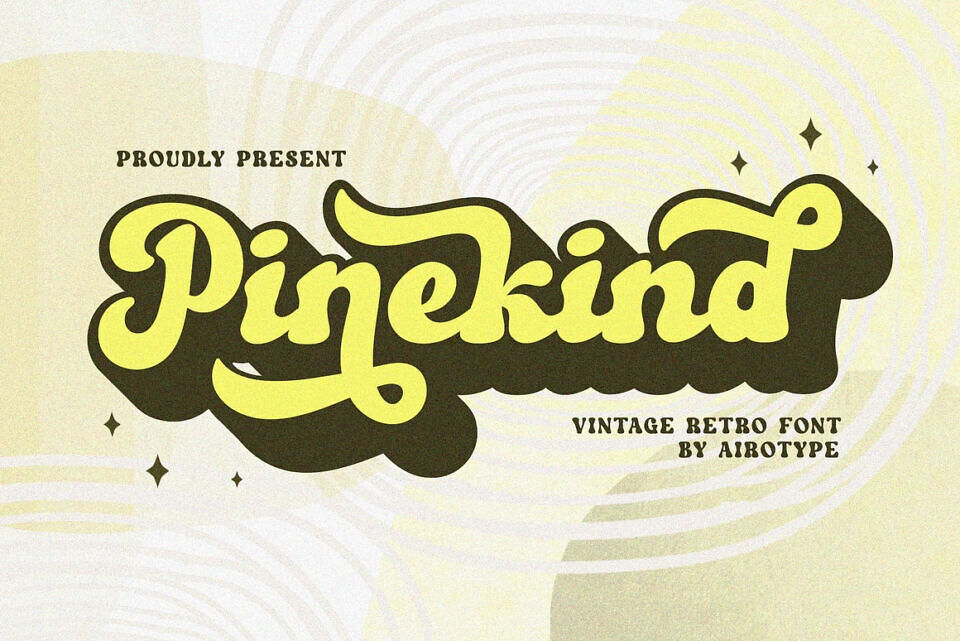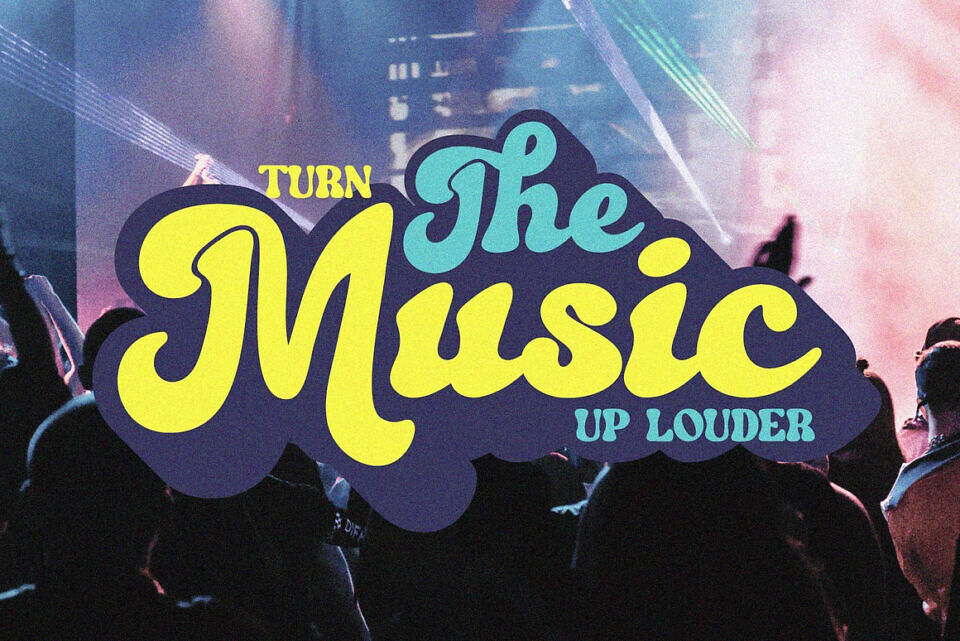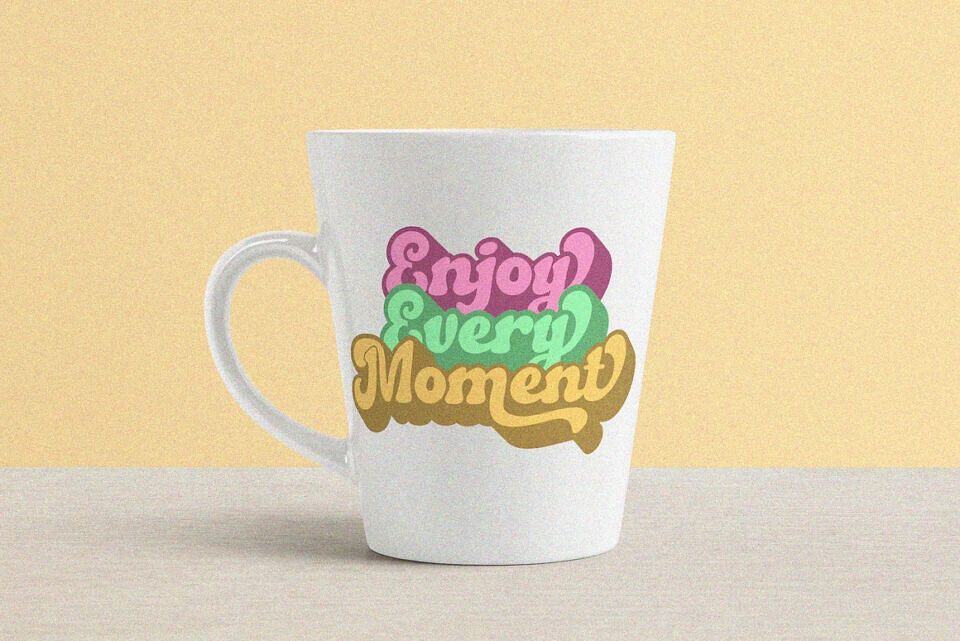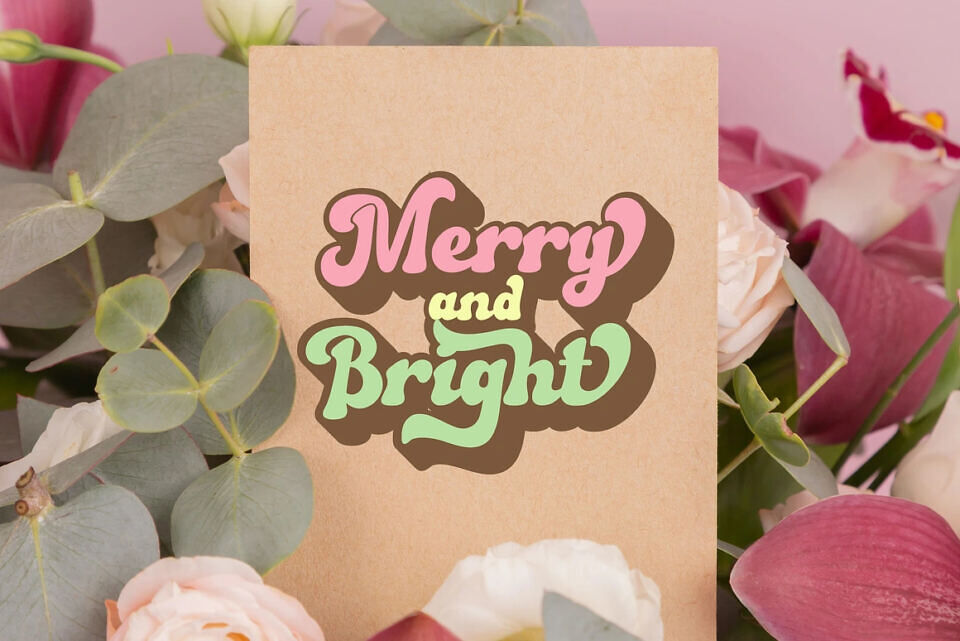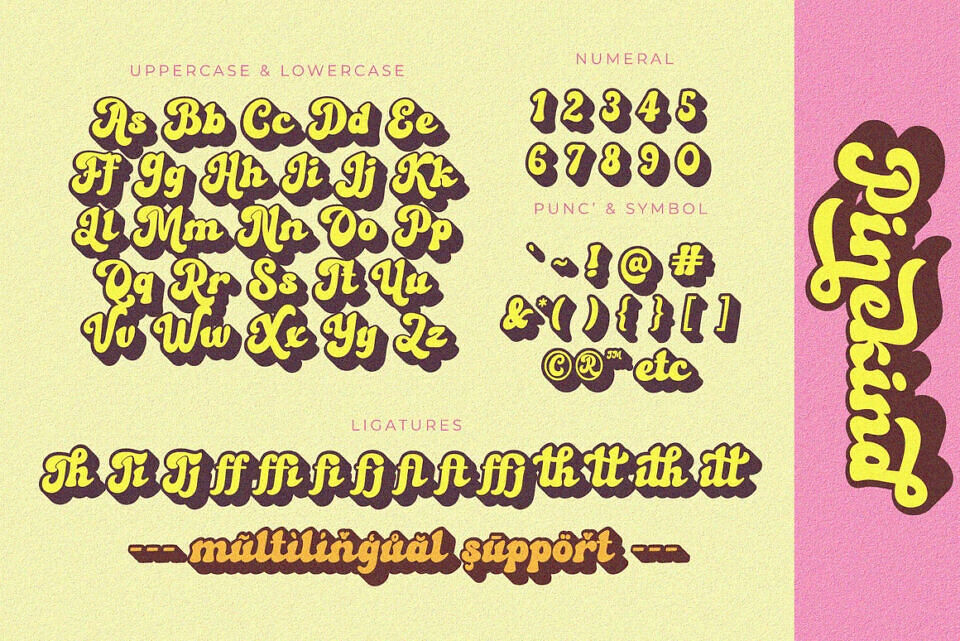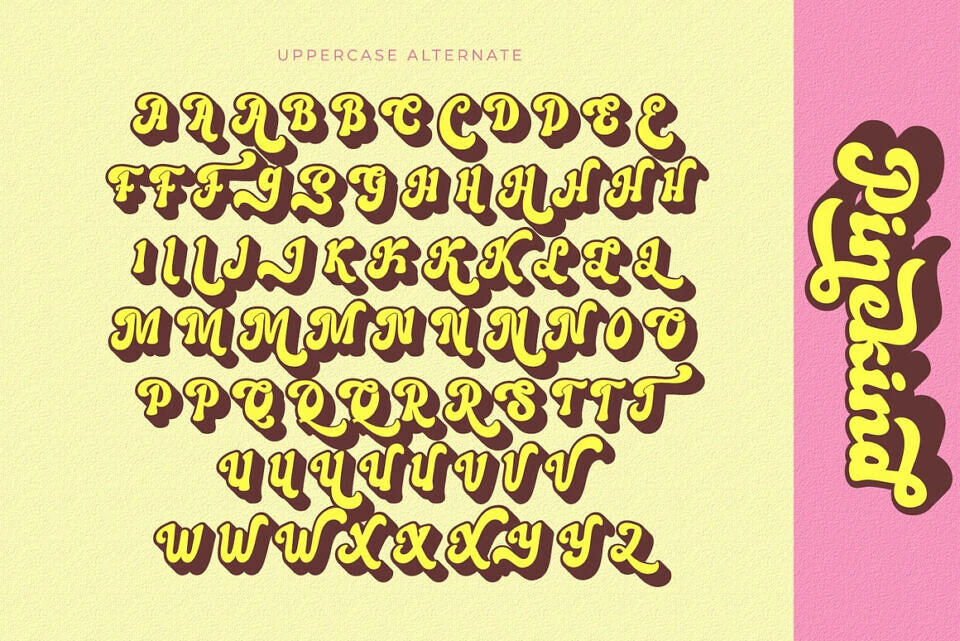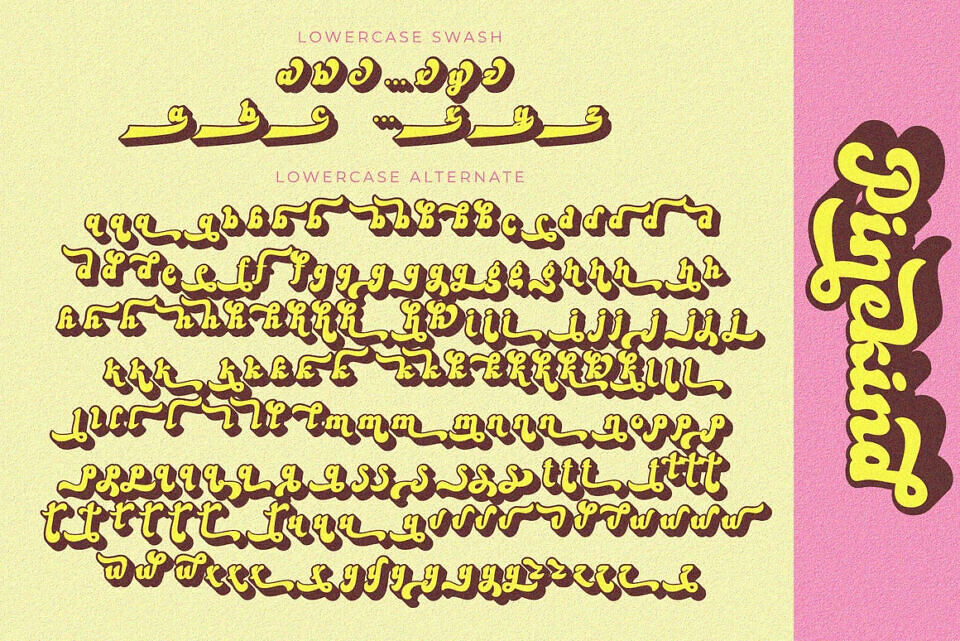
Pinekind Font
Pinekind is retro script font with groovy and vintage vibes. This is modern, cute, and edgy. Pinekind has lots of extra glyphs to give the designers more options for designing with this font. It also has extrude style to give shadow or layer for the regular one.